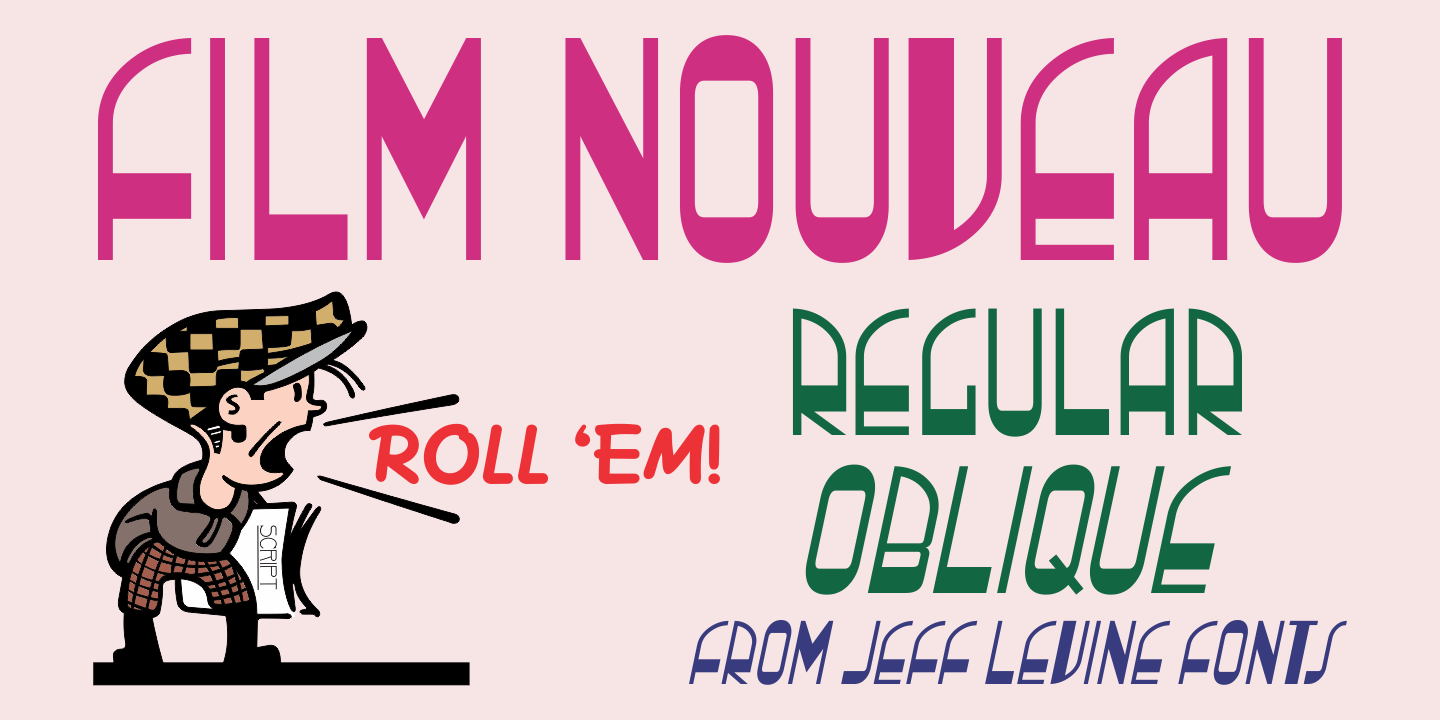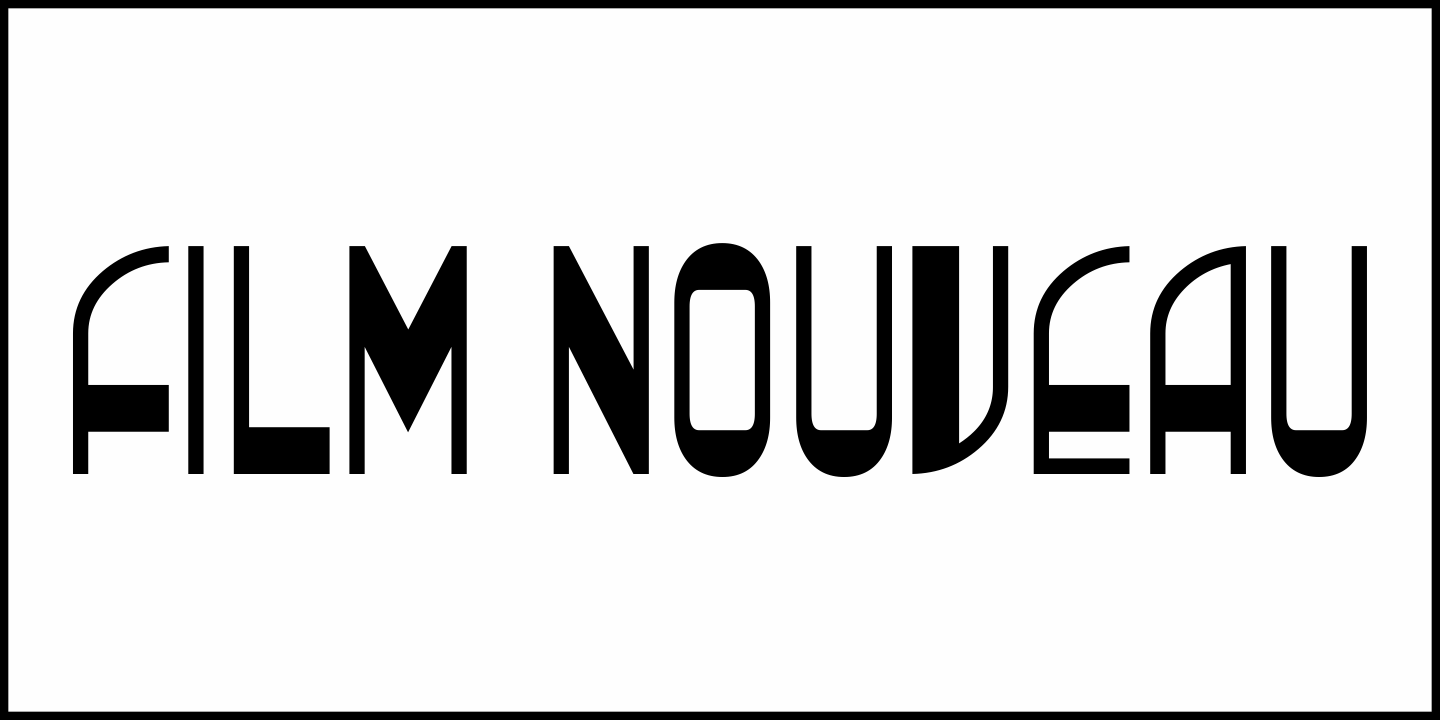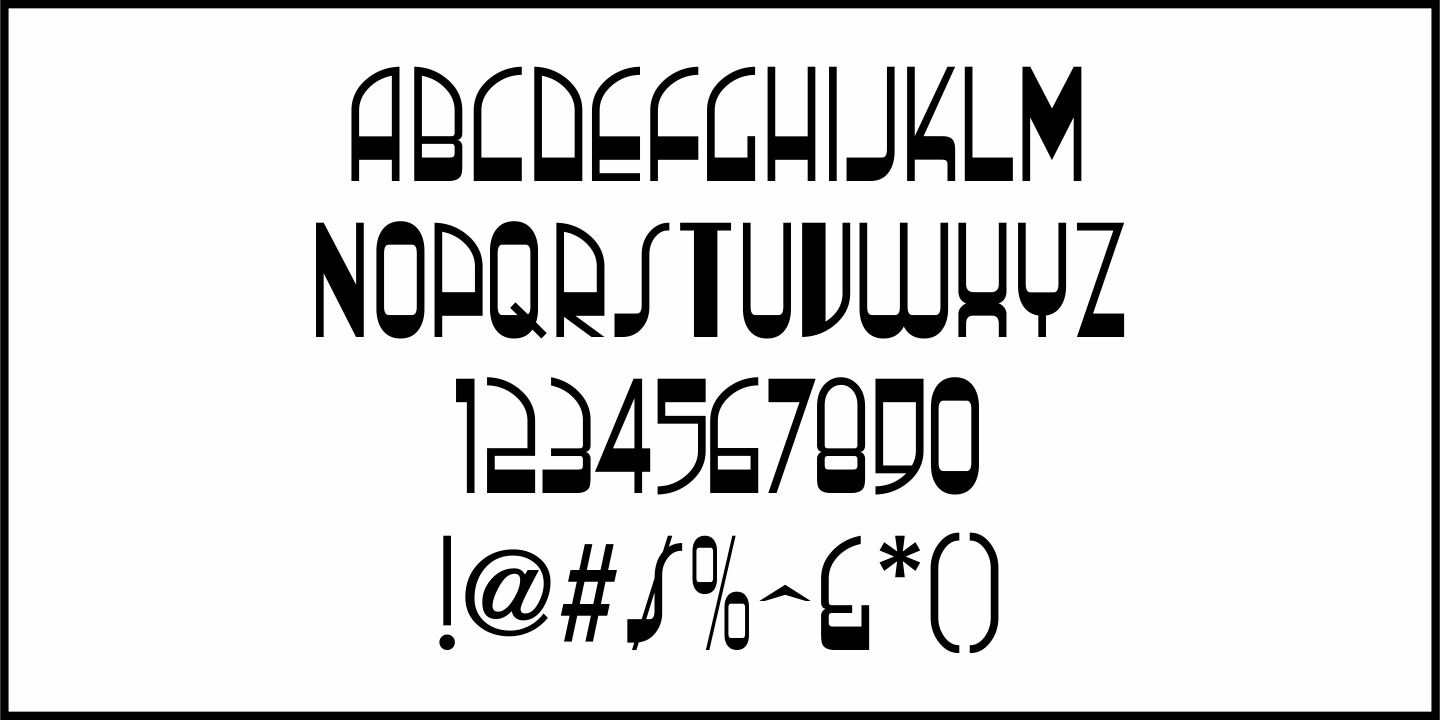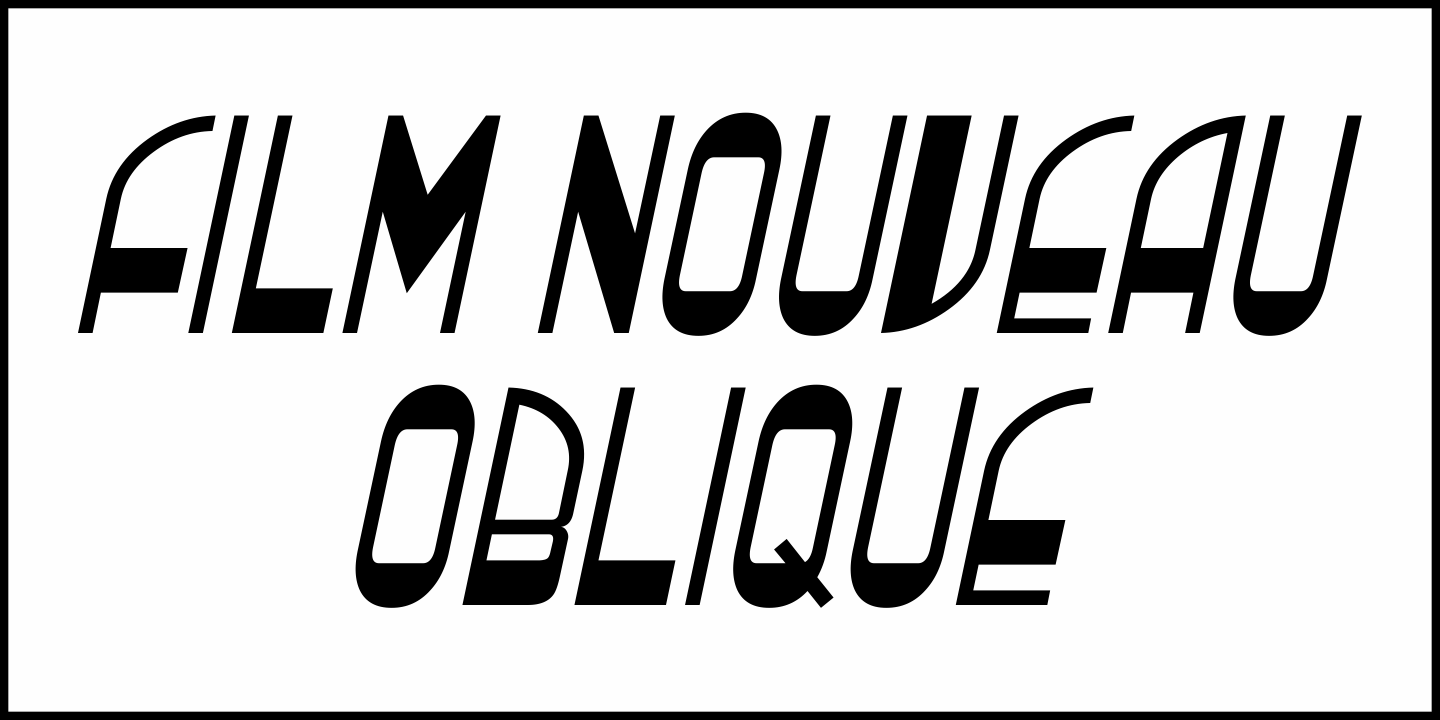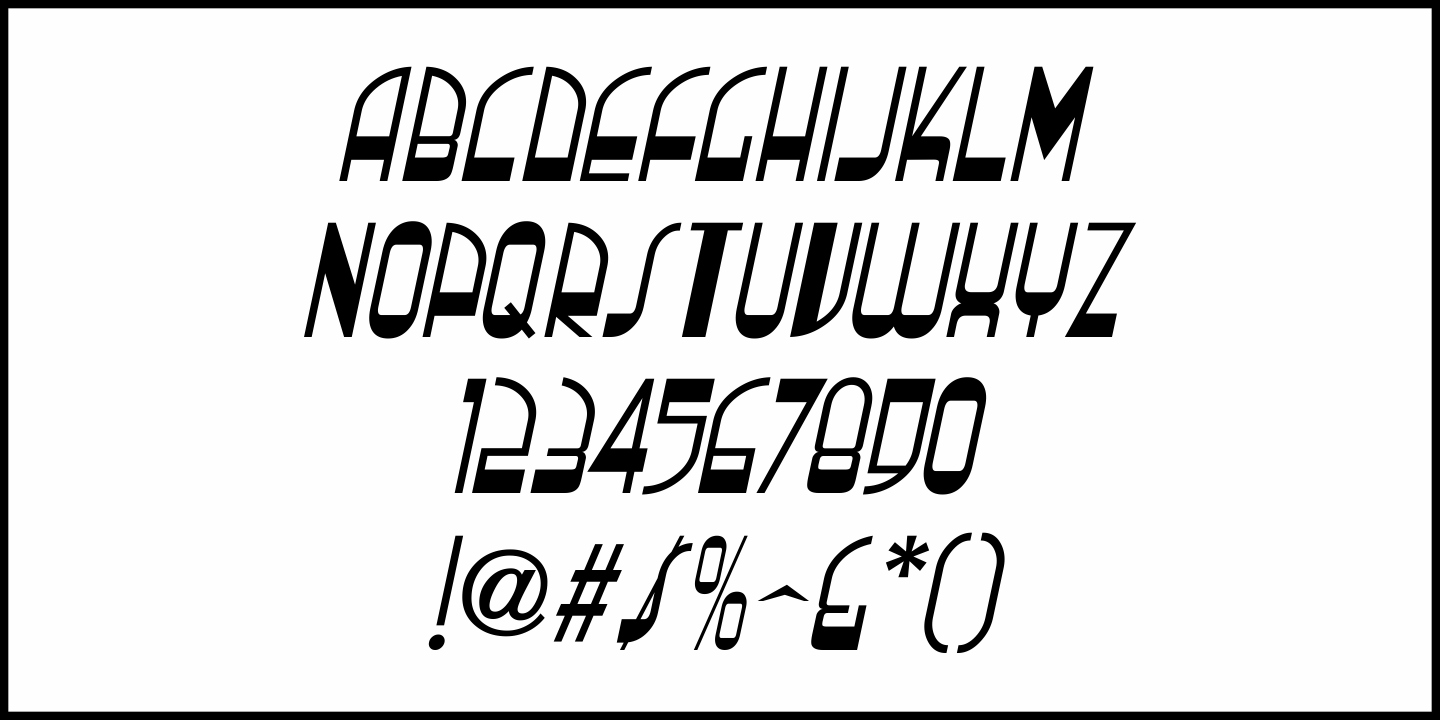
Film Nouveau
An image in the December 14, 1938 edition of "The Exhibitor" (a movie industry trade magazine) carried a picture of the Chelten Theater in Philadelphia, Pennsylvania.
The marquee sign had neon lettering in a condensed type style that had some Art Deco influences, but leaned more toward that of Art Nouveau.
This provided a model for the typeface Film Nouveau JNL, whixch is available in both regular and oblique versions.
Film Nouveau JNL Regular by Jeff Levine Fonts